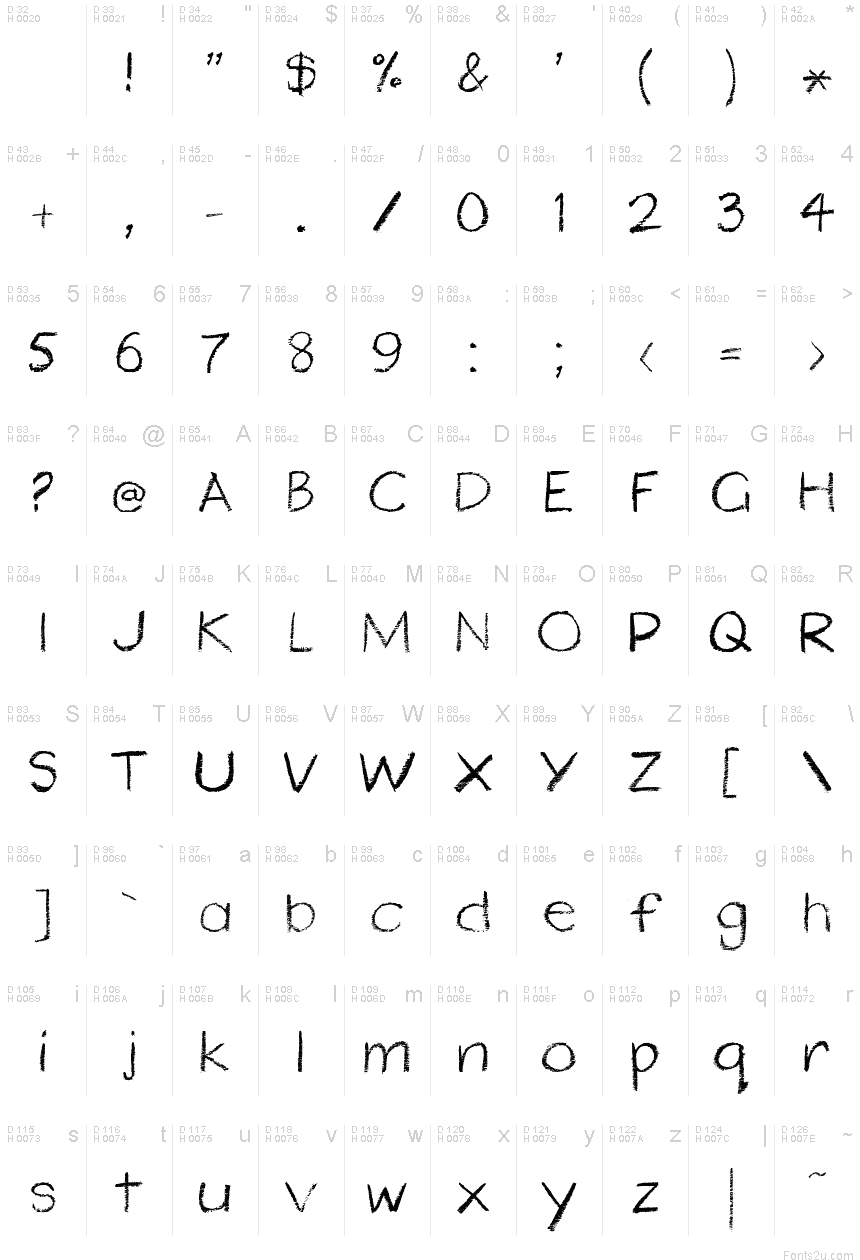
Podgląd czcionki schalk
Schalk is a free eroded display font with tall, irregular letters and an unmistakably hand-drawn edge. Its narrow strokes shift abruptly in width, and the grainy marks resemble dry marker dragged across a rough surface.
It can lend punk gig posters a raw urgency, yet the same wiry shapes also suit handmade food packaging. Album covers and streetwear graphics are another natural fit. The rough marks speak most directly to independent labels, small venues, and youth-focused brands seeking an unpolished voice.